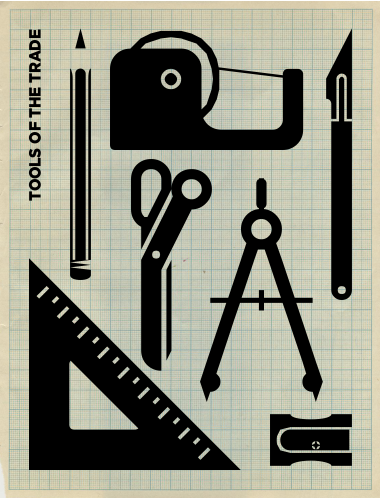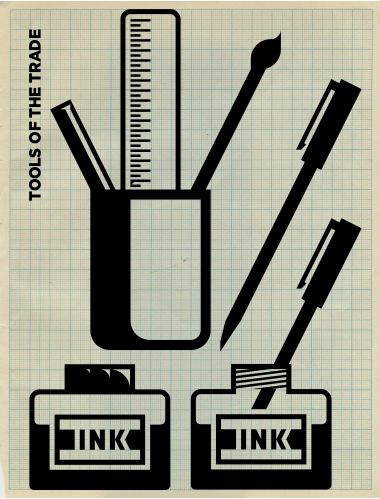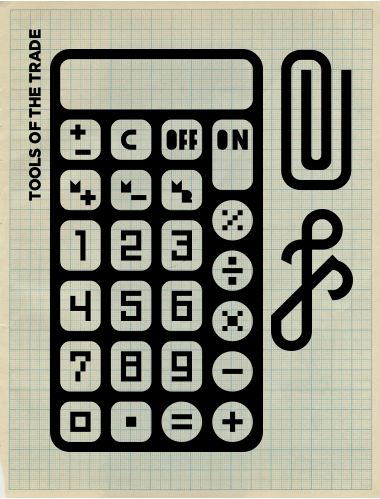
I like this one very much, and I'm surprised that nobody has commented or voted on it until now.
aye!
this could be bigger, so do it :)
omg! it's good! it's soooo real!
This was more a way for me to have a go at fontstructing again, after a bit of a break, than a serious entry - I always leave these things too late.
If I get a few spare minutes, I'll hopefull add some more, but there's not much else on my desk to draw...
How about a magnetized dispenser of paper clips? And since you have a pencil, why not add a ballpoint pen?
Last couple of samples.
I daresay I've bent the rules a little with the inclusion of *some* letters and numbers - hopefully not.
Although... the bent paperclip intended to resemble an "fs" ligature, may be a little too much.
Nice work and nice font!
I like! 10/10
I'm pretty sure letters and numbers are allowed for elements of the illustration. The point is that it shouldn't be usable for text. That's how I've interpreted the rules.
Congratulations! FontStruct Staff have deemed your FontStruction worthy of special mention. “Tools of the Trade” is now a Top Pick.
very cool
Very nice, I liked this one a lot, very well designed. Keep at it, Stay strong, and Live on!